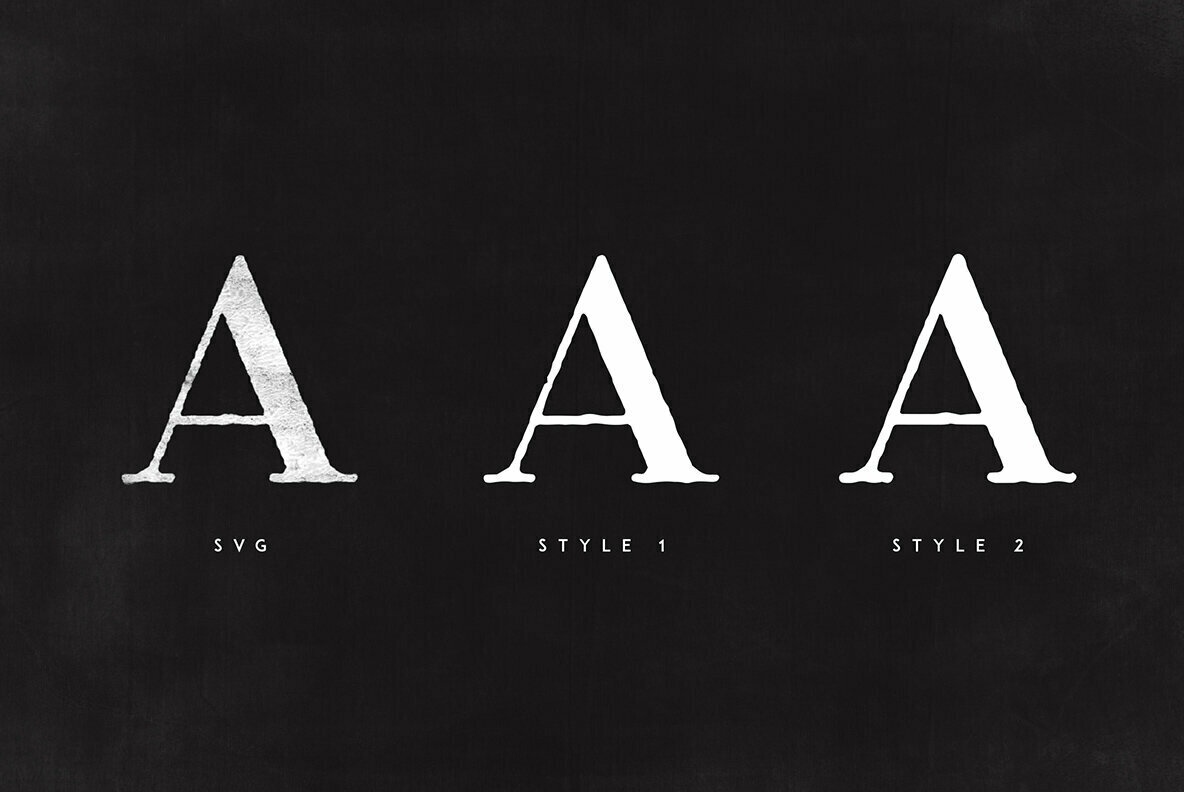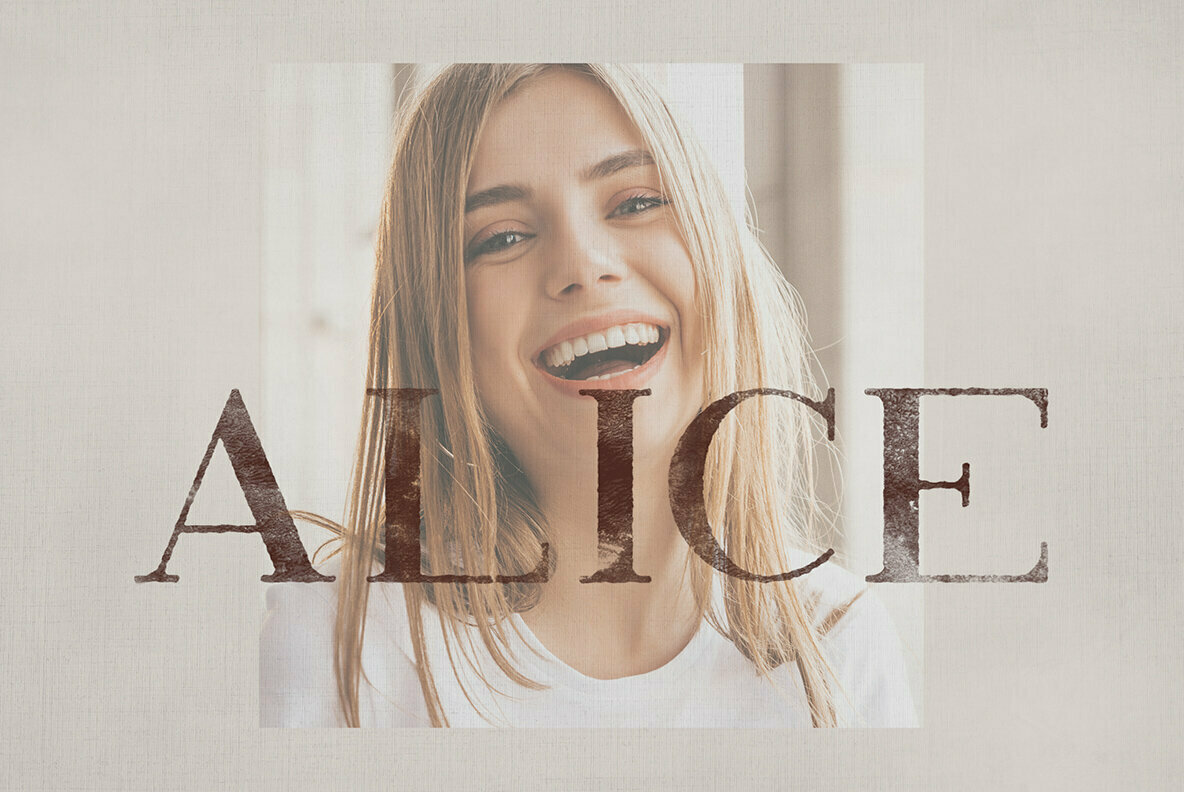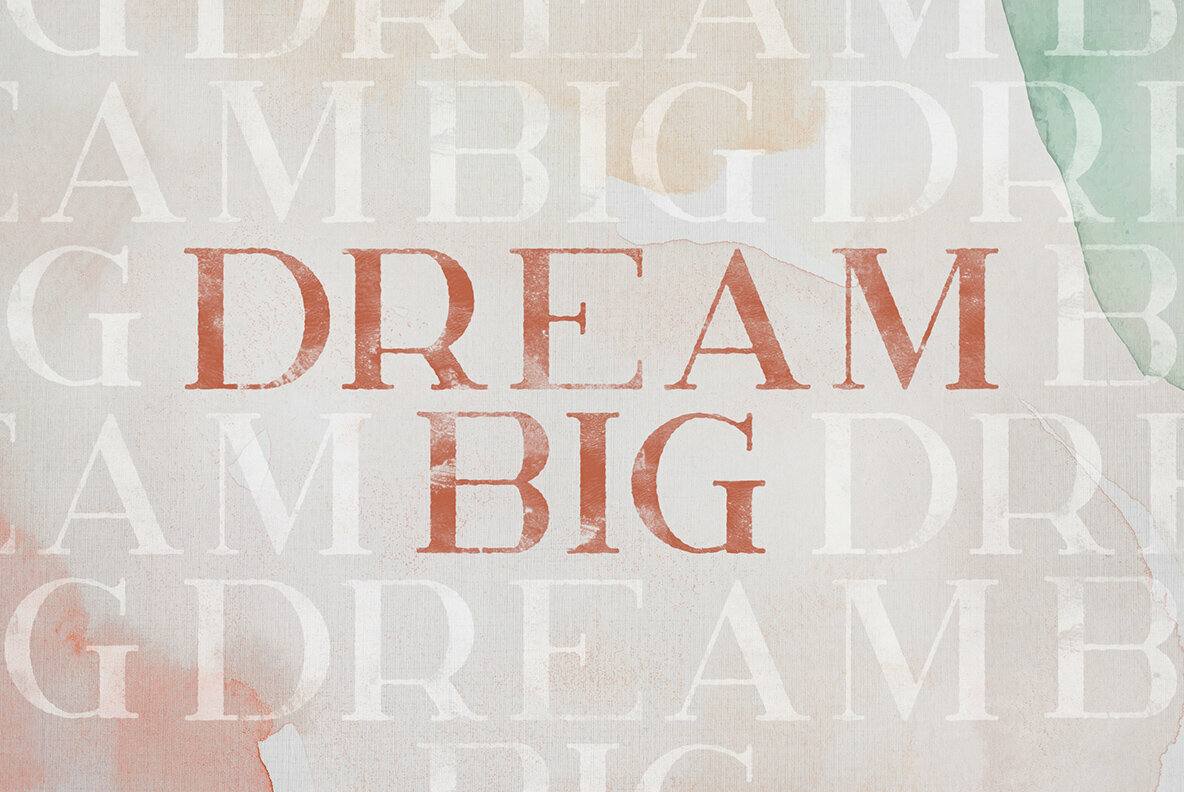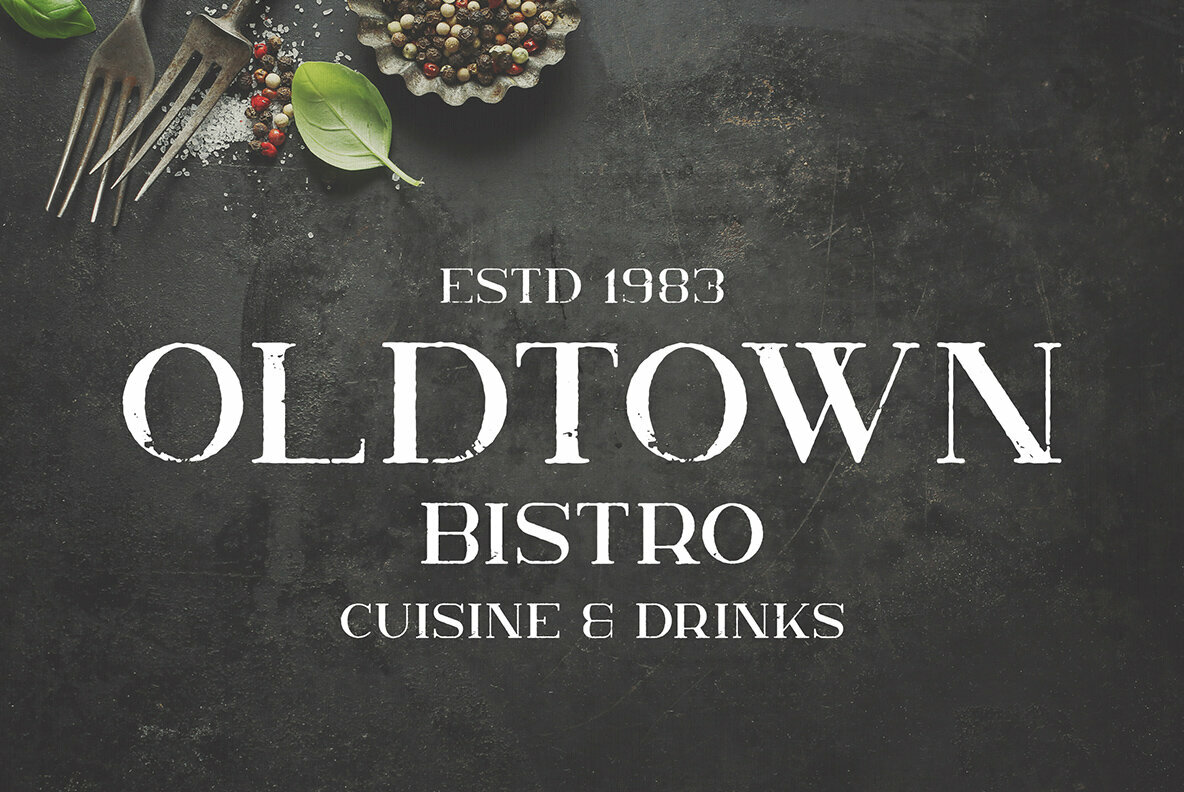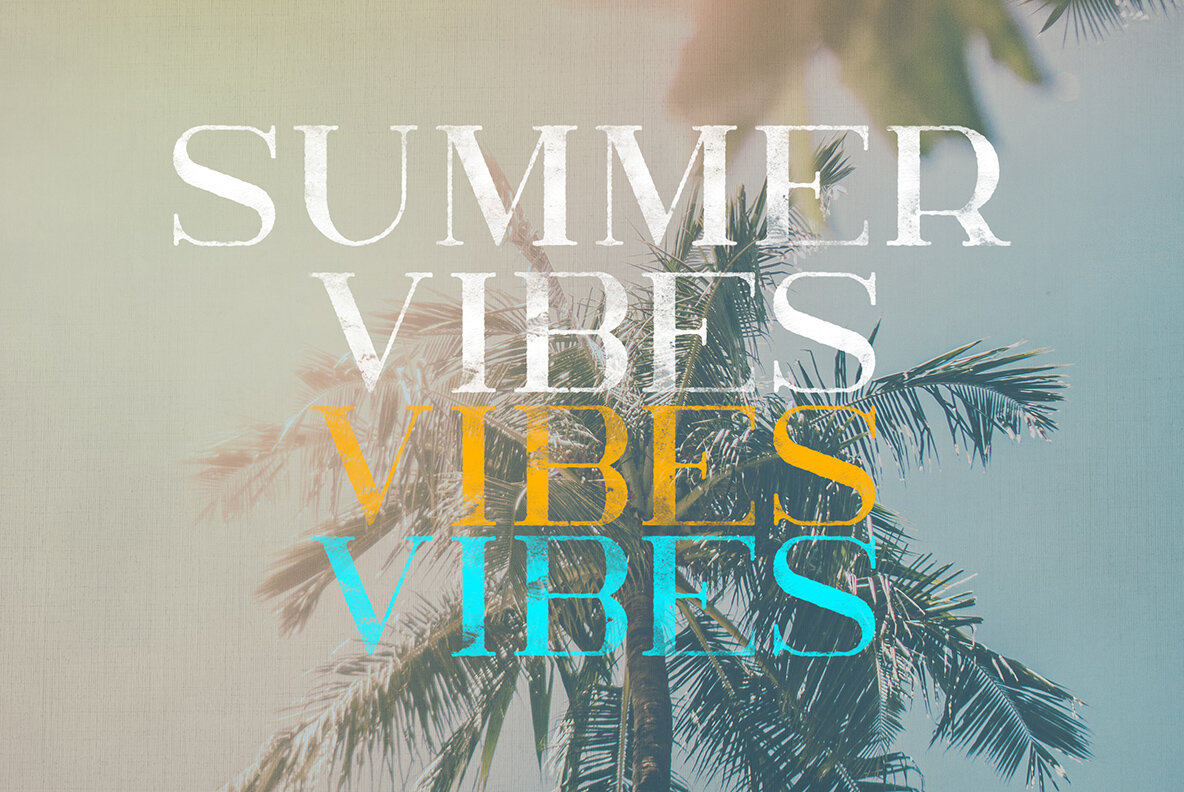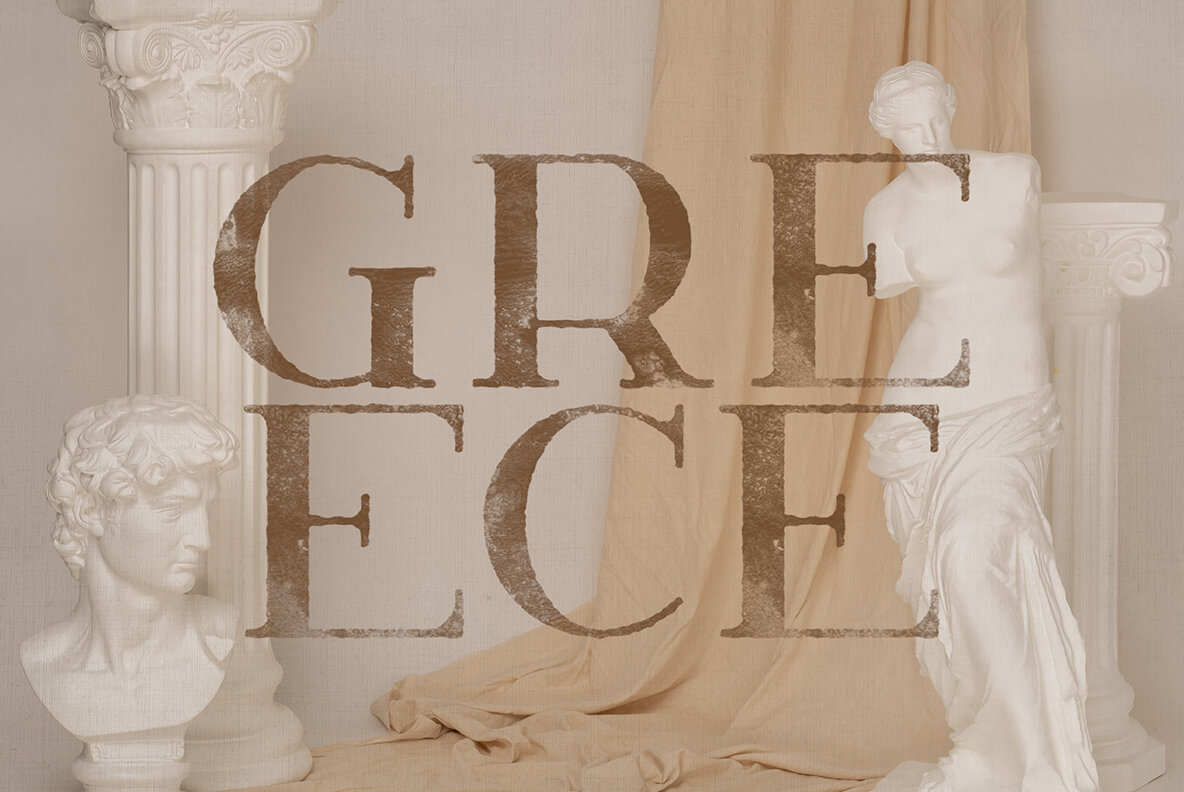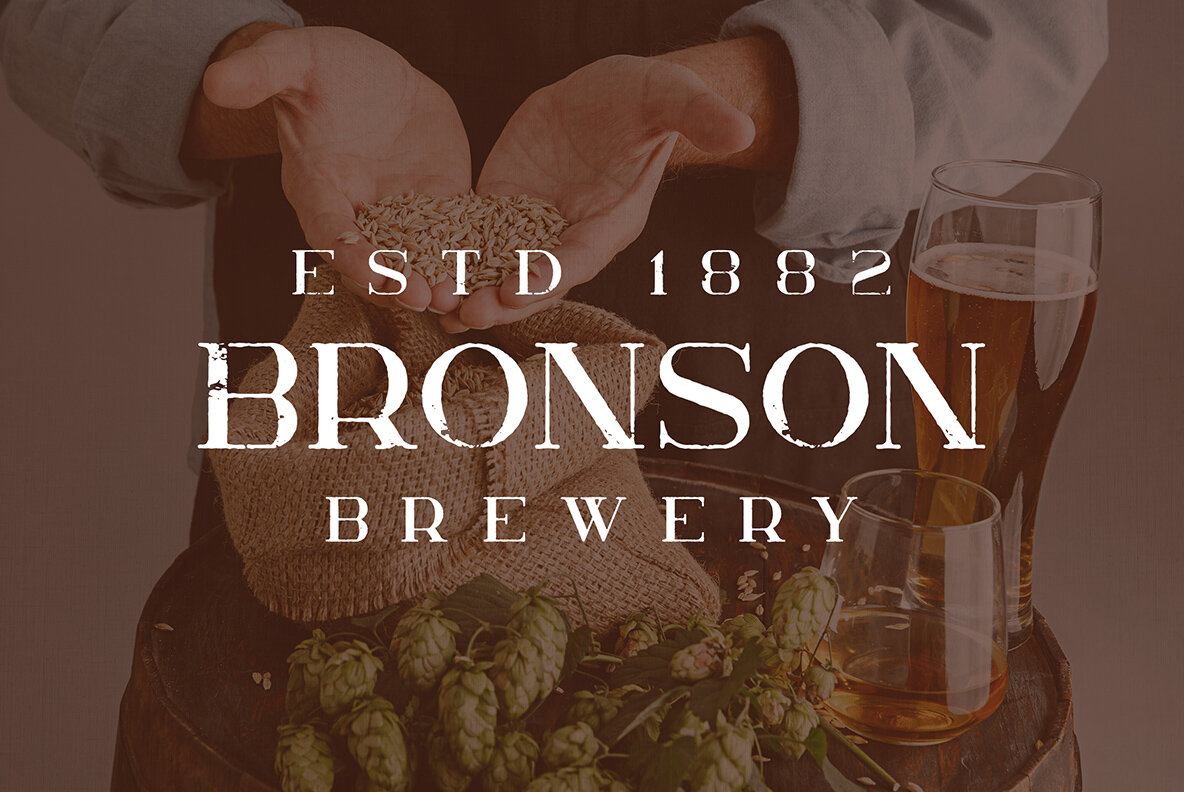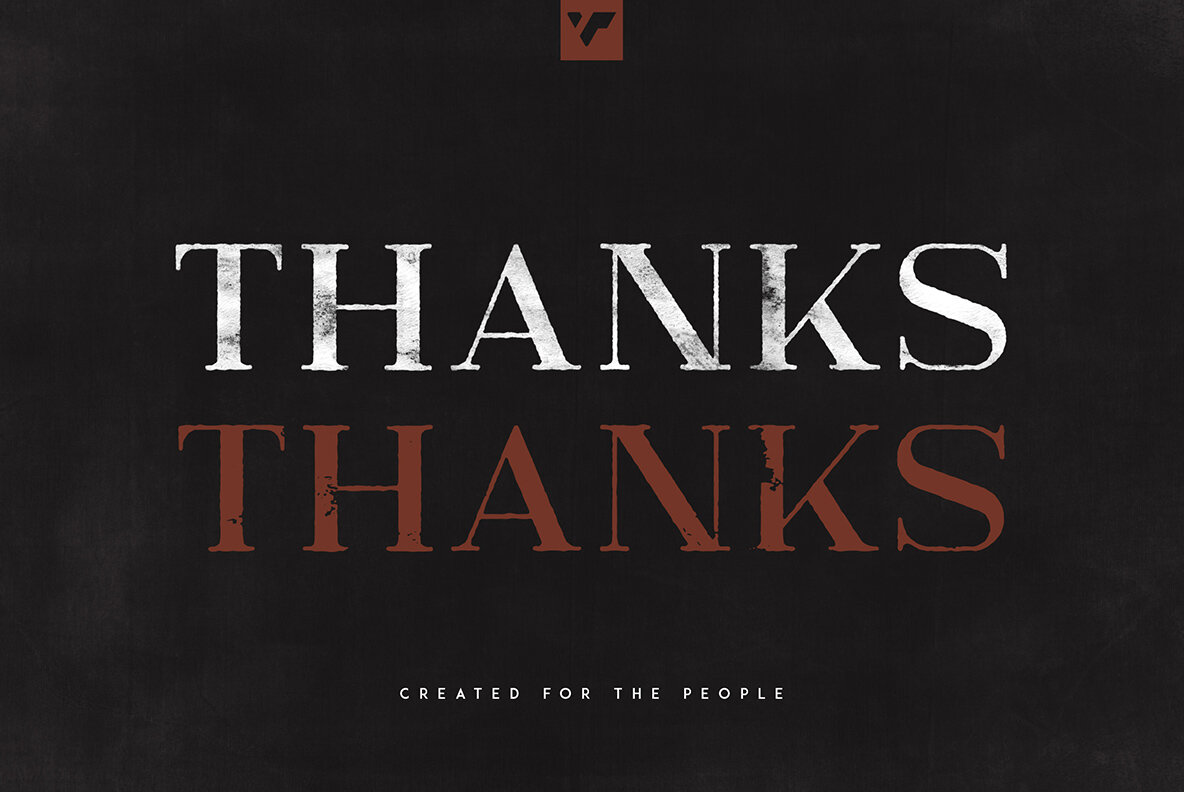
Nelipot Font
Nelipot by VP Creative Shop offers a unique blend of bitmap and solid styles that can elevate your design projects with a touch of sophistication. Perfect for branding, homeware, or product packaging, this typeface seamlessly integrates into both contemporary and traditional aesthetics, adding flair to magazine headers and text overlays. Features:Nelipot: A Distinctive Typeface for Versatile Design